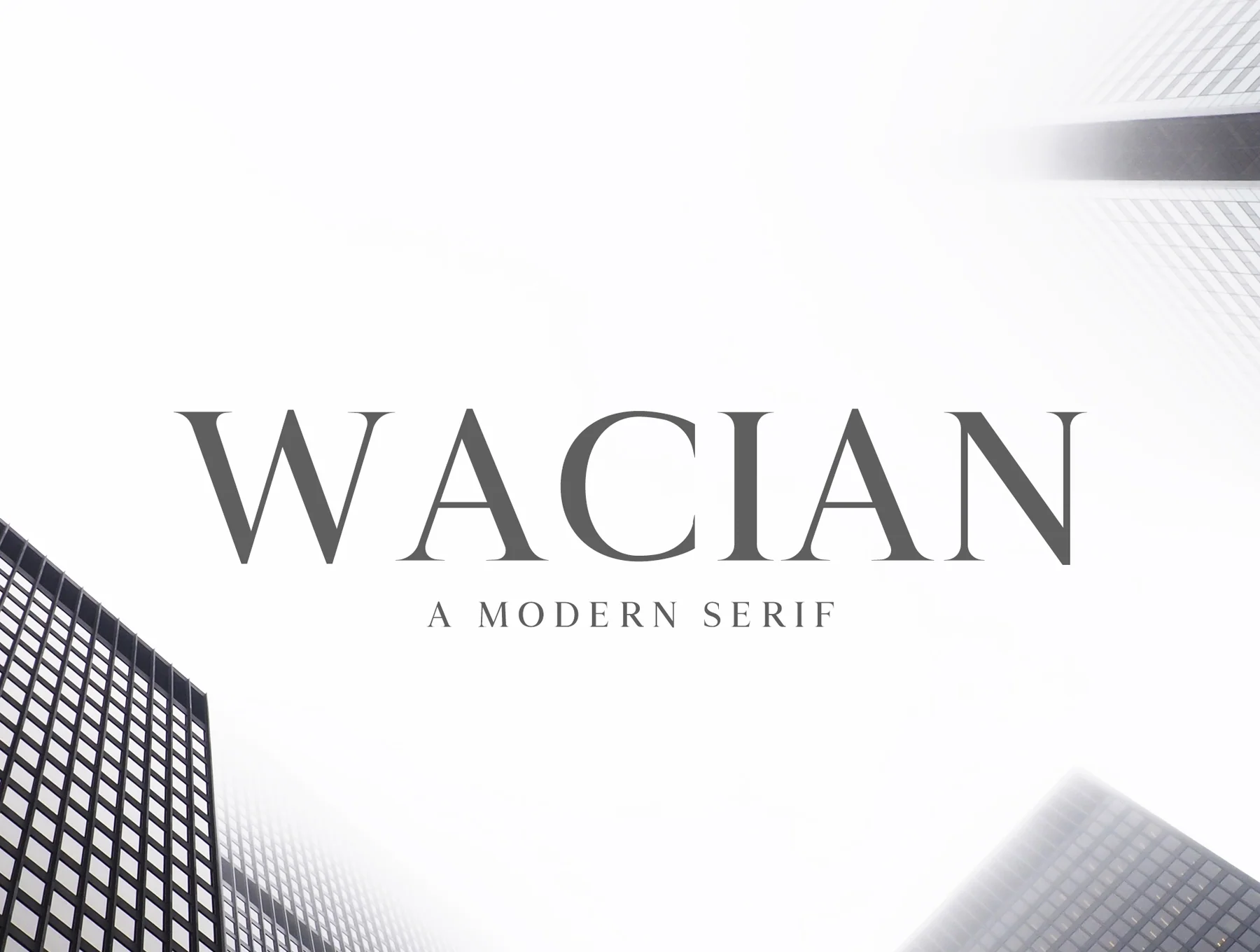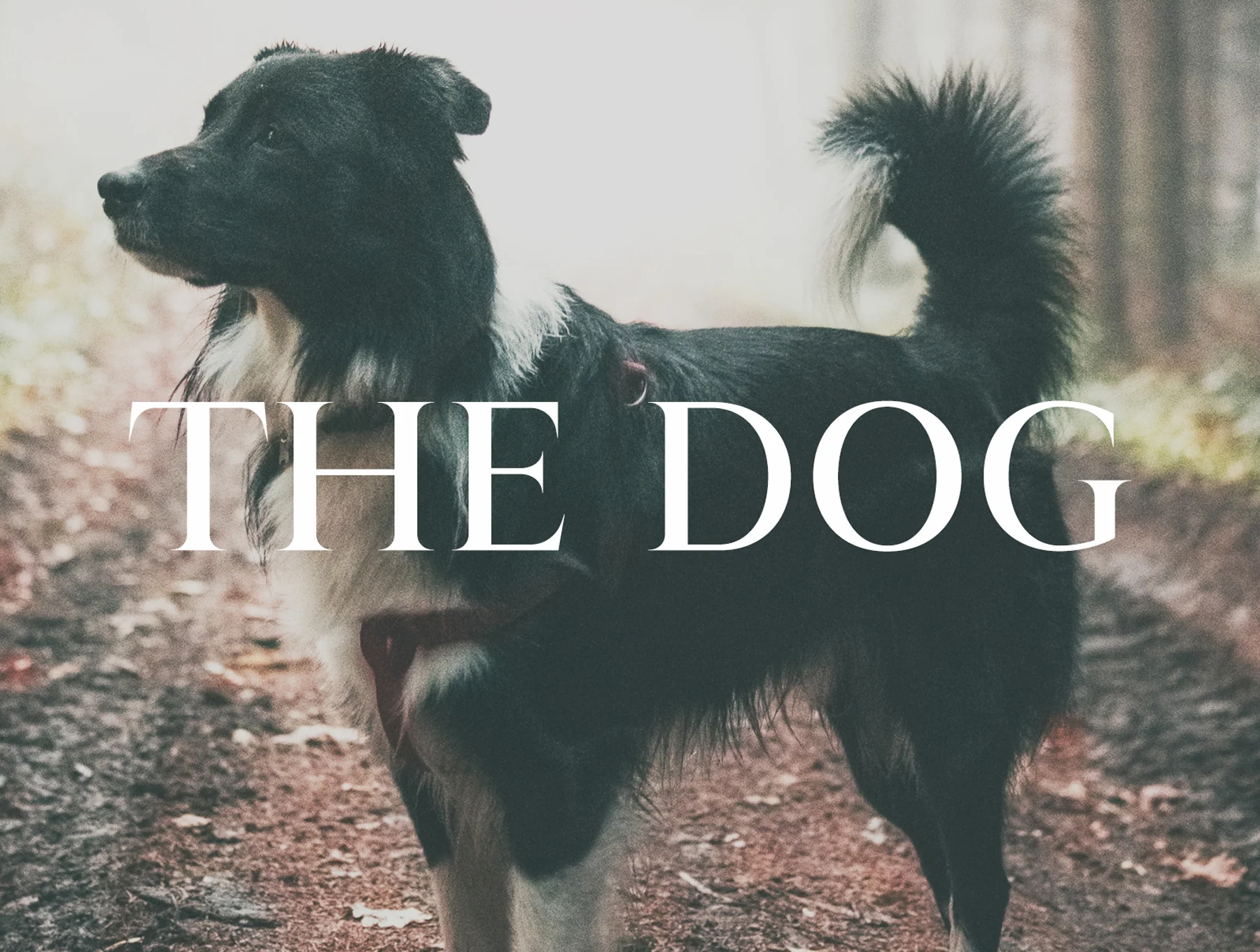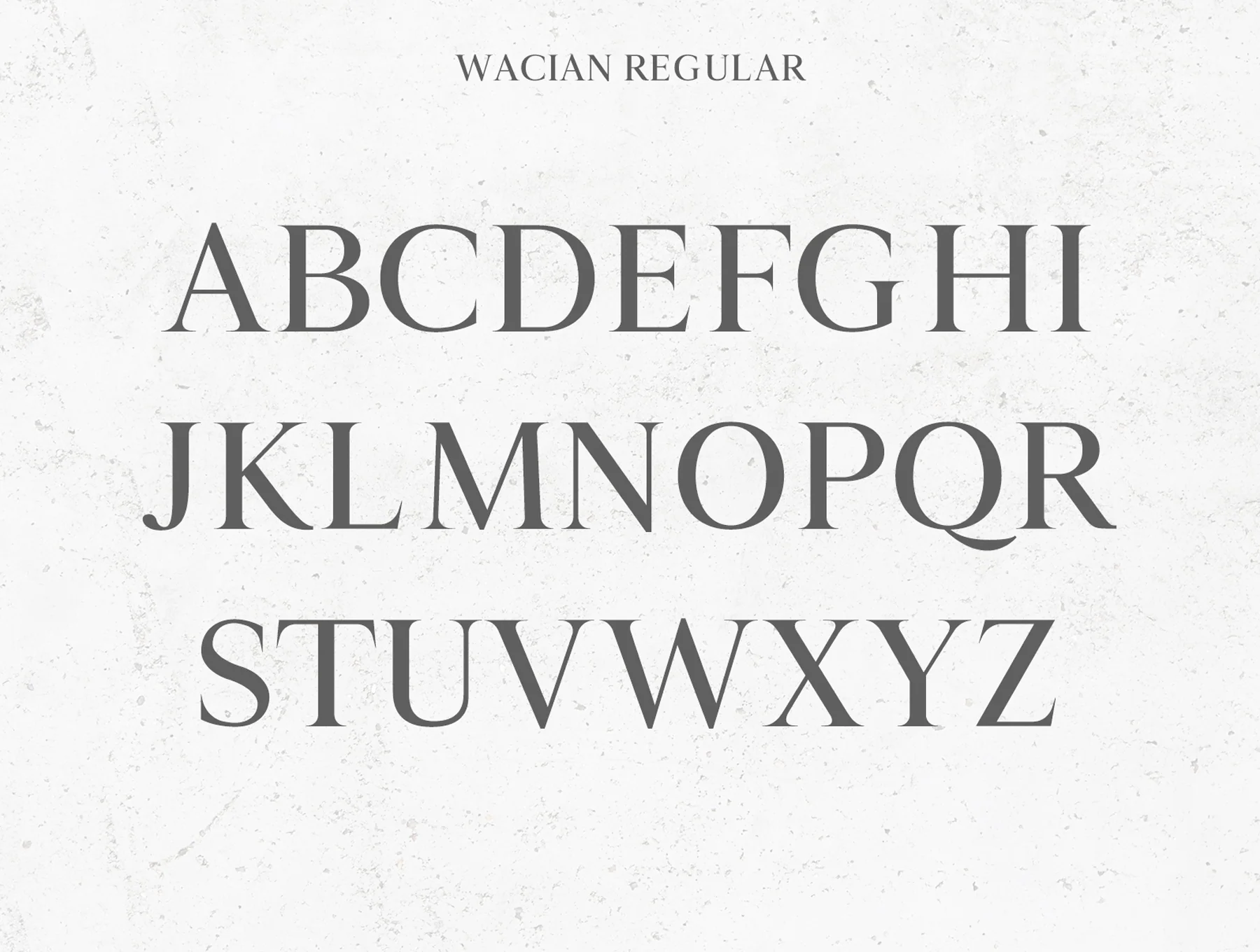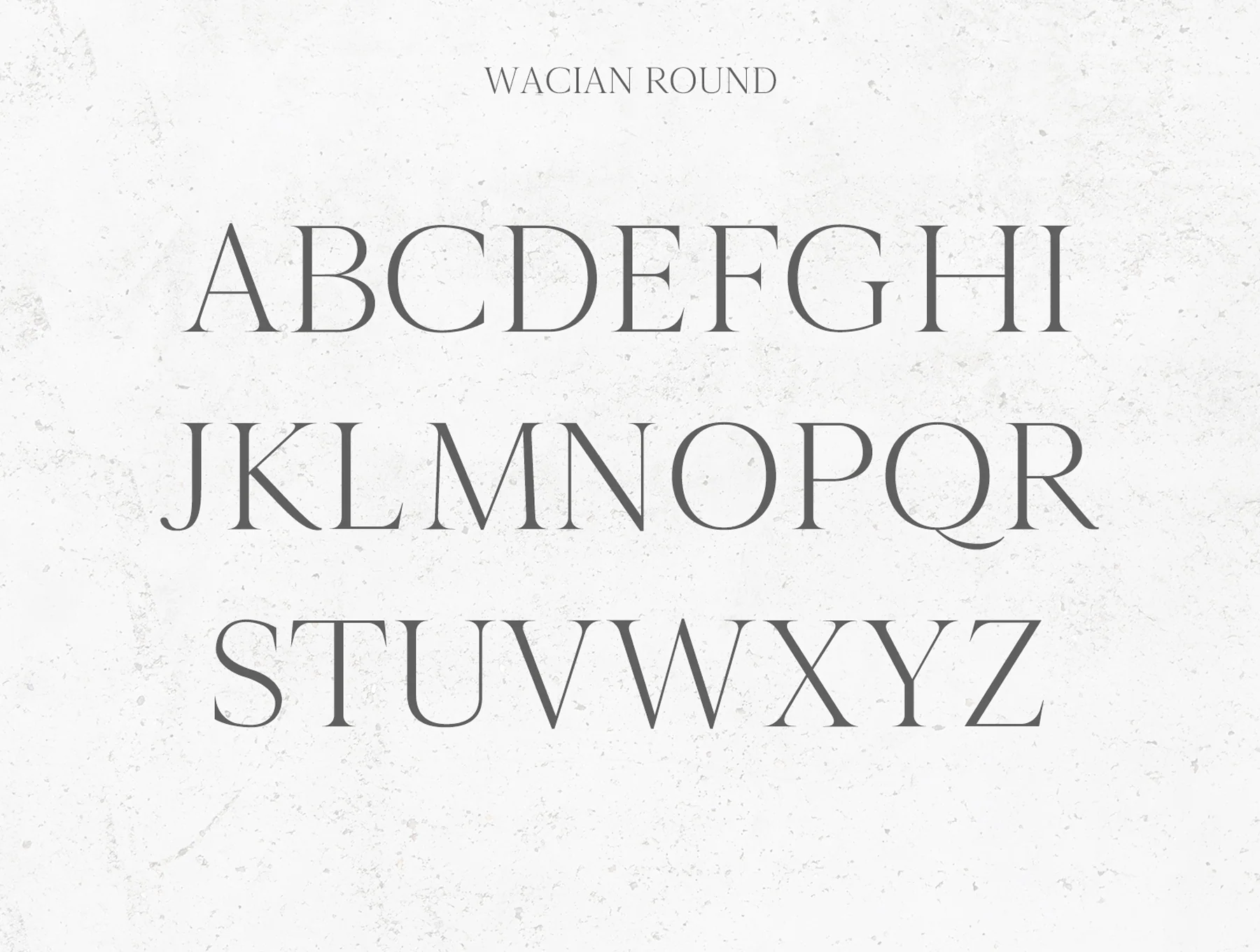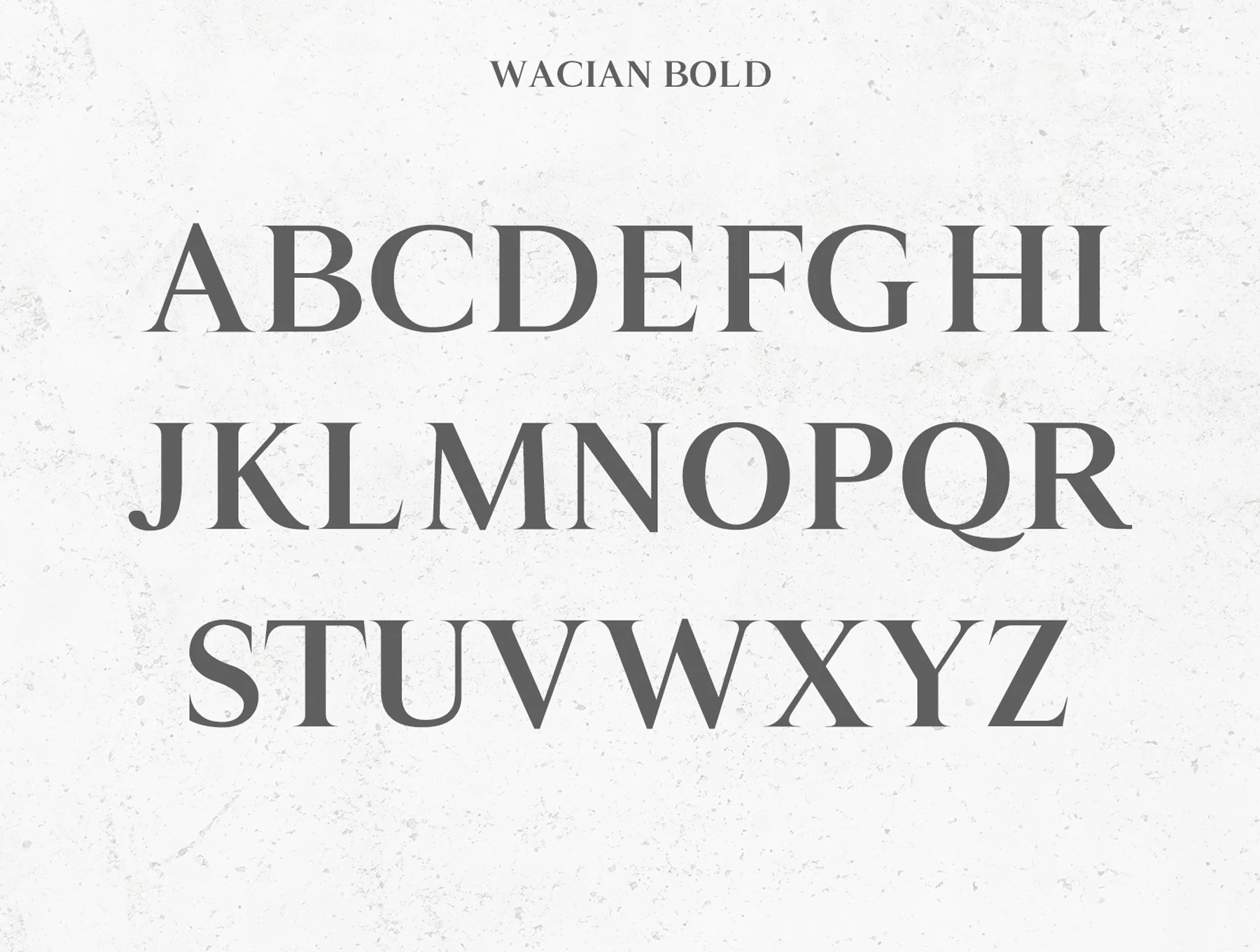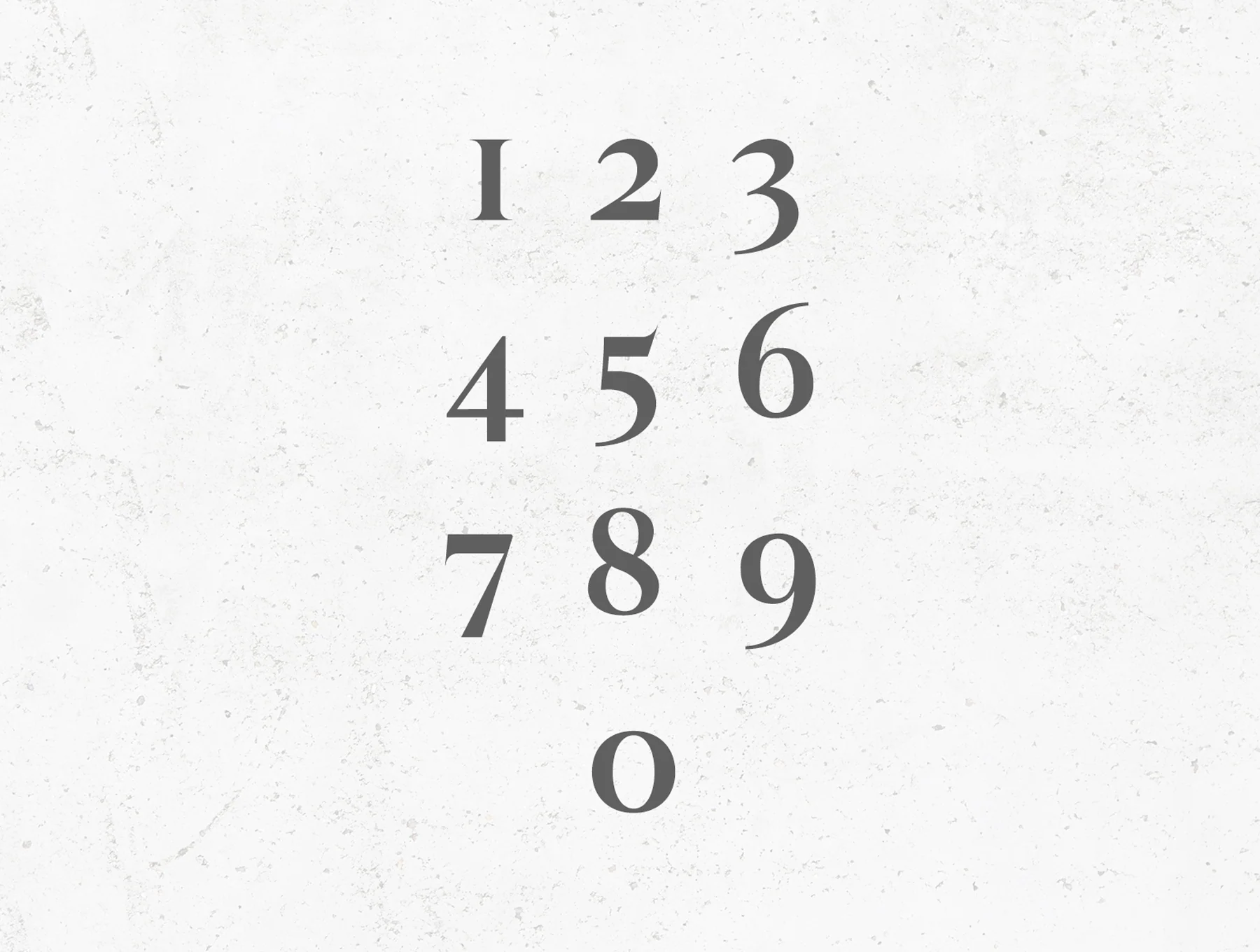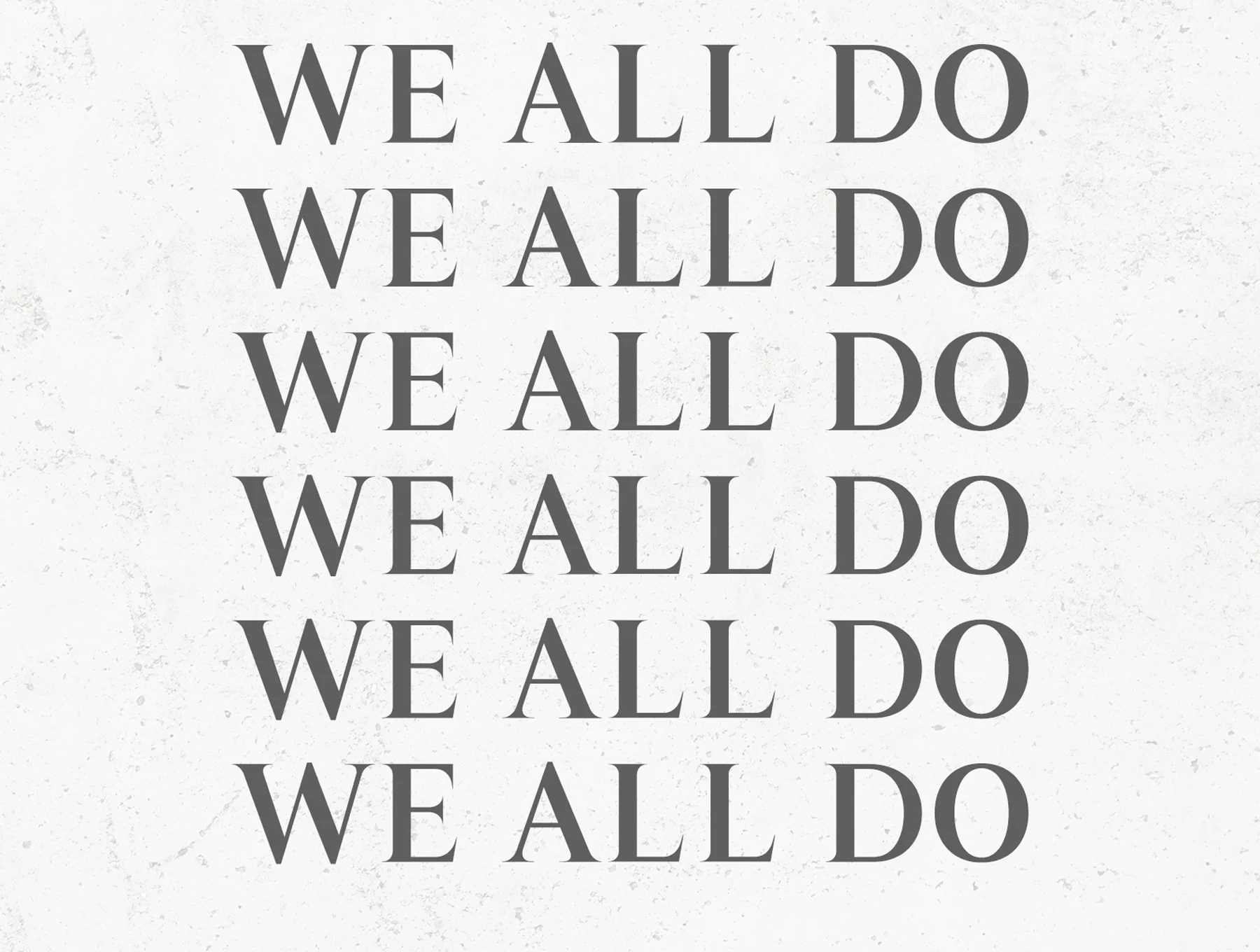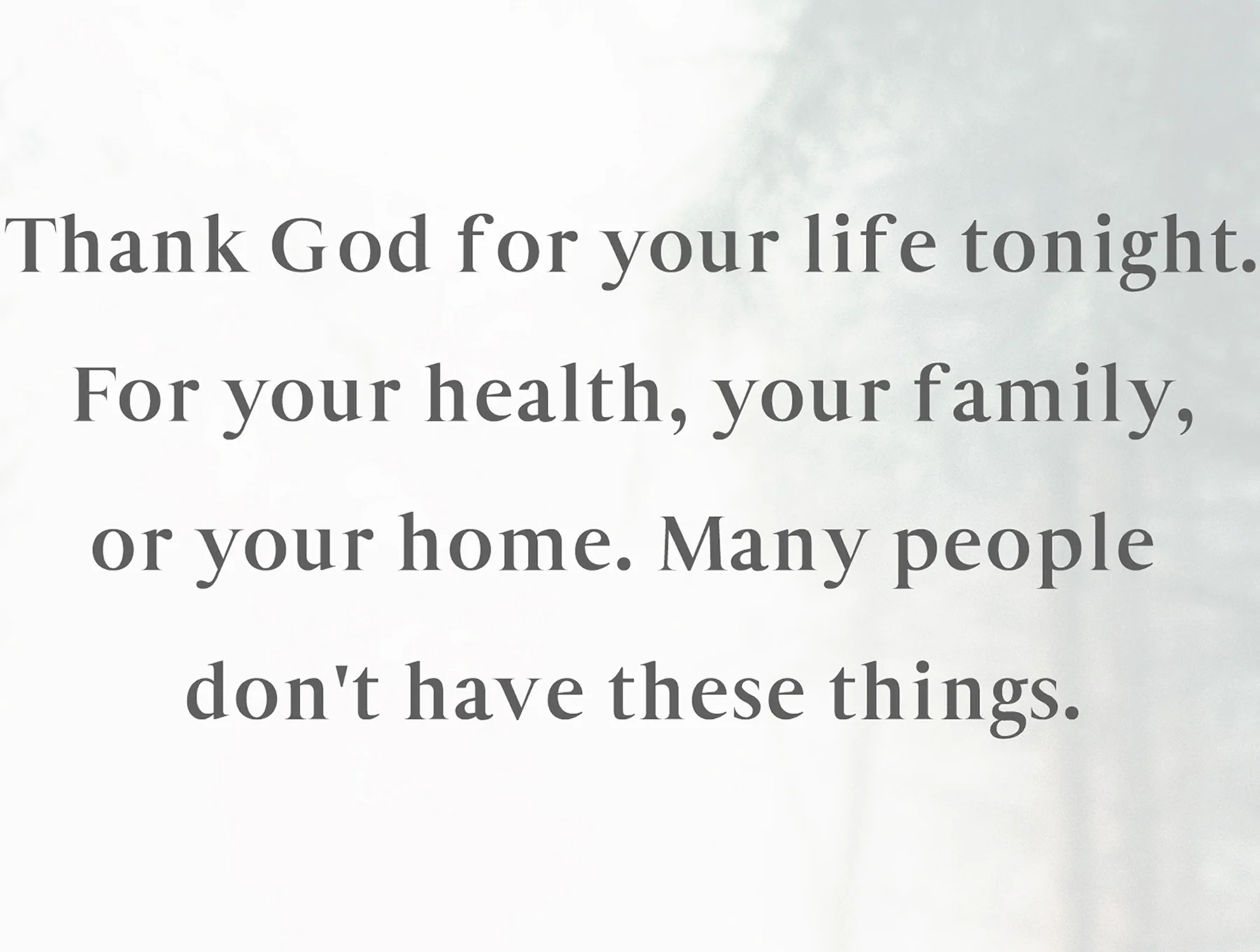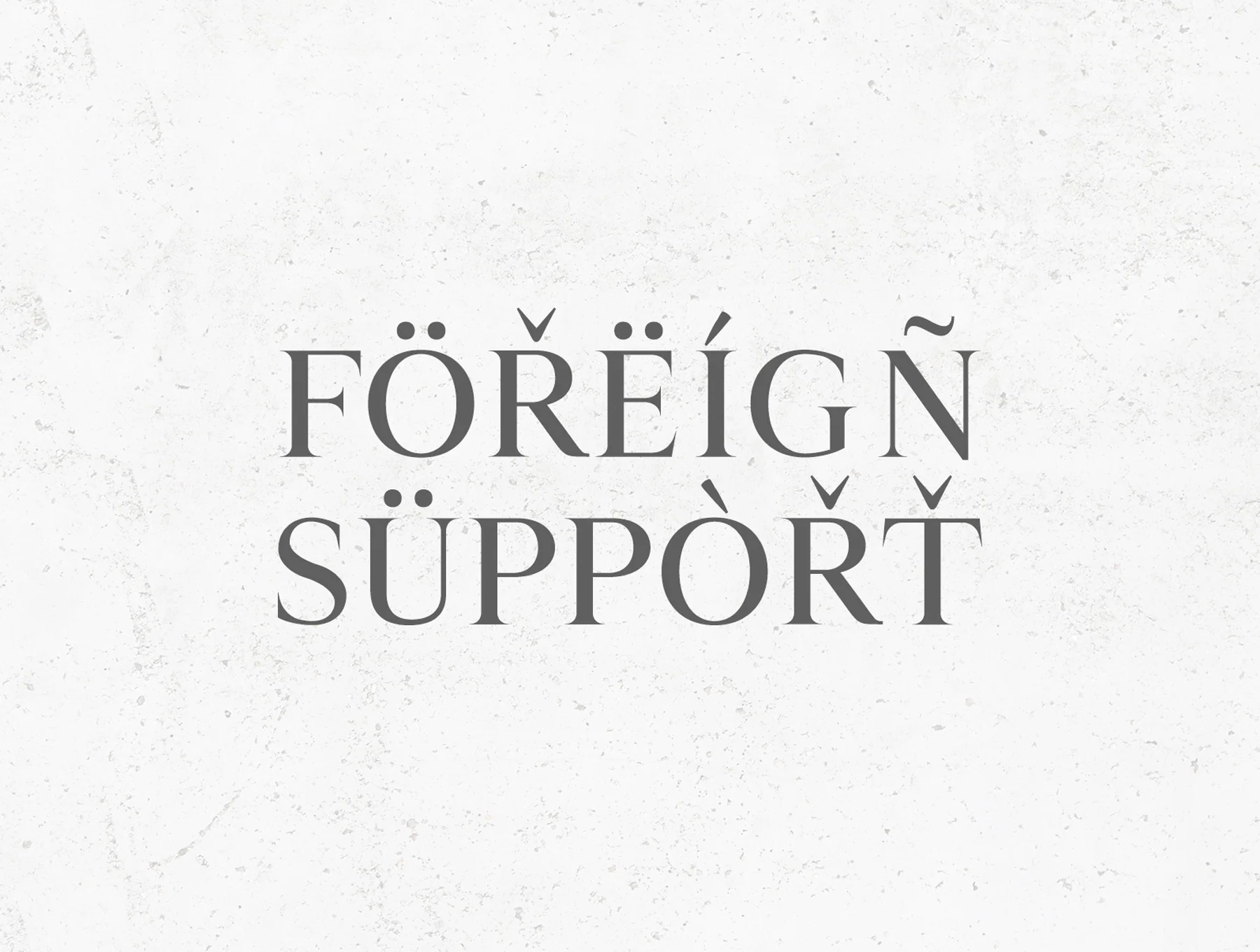
Wacian Serif Font Family
Distinct modern 5-weight serif typeface with core glyphs and support for non-English characters.
Serif-style font family
Includes 290 characters
Regular, Light, Round, and Bold weight options
Wacian is a distinctive contemporary serif typeface featuring 5 weights, essential glyphs, and multilingual characters. Ideal for headlines, posters, branding, logos, packaging, presentations, quotes, titles, magazine headers, web layouts, ads, invitations, books, and many creative projects.